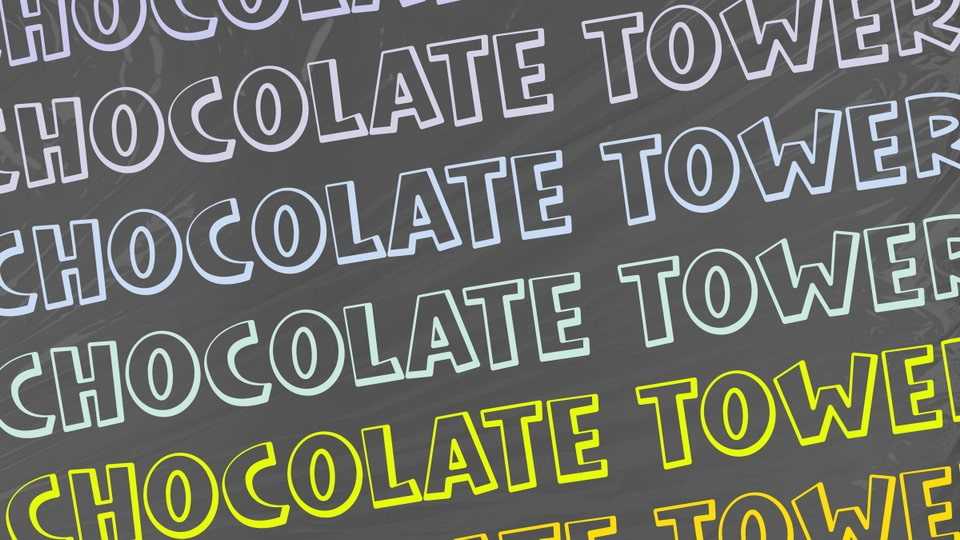
Download Chocolate Tower font, a bold and playful cartoon typeface with a fun shadow effect. Each letter bursts with character, featuring chunky, rounded shapes that create an inviting and lively feel.